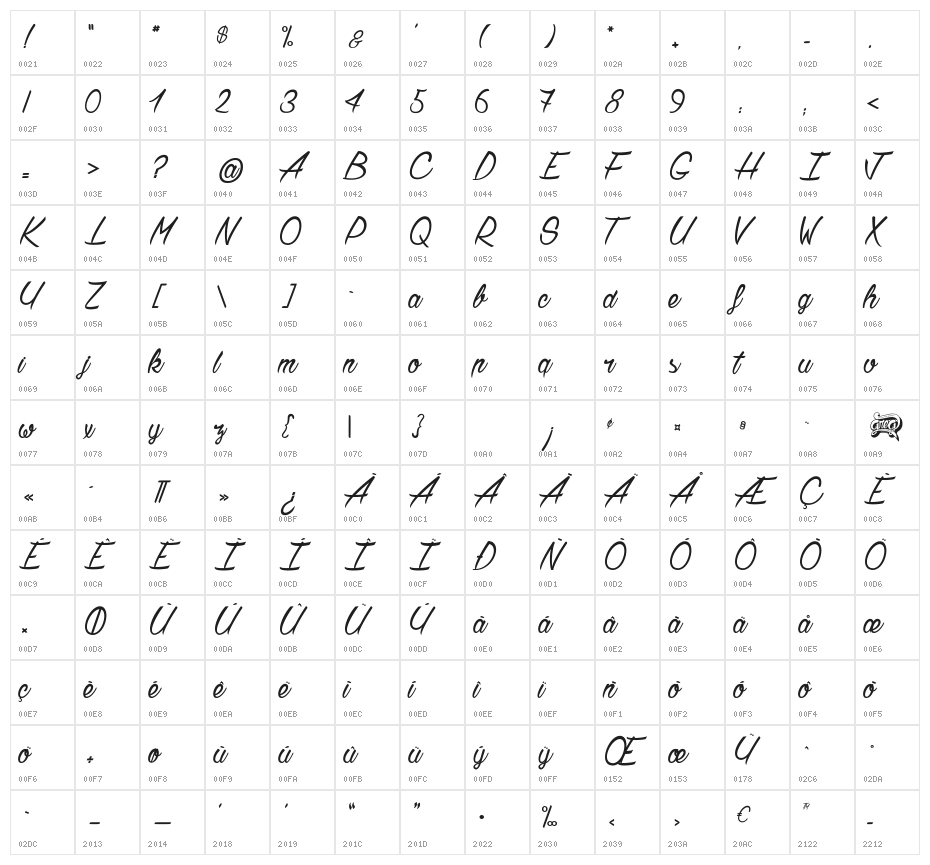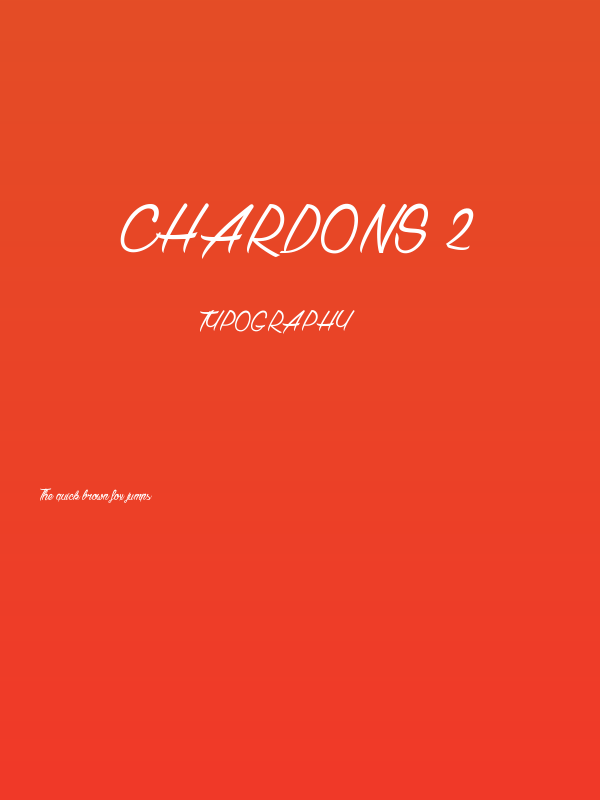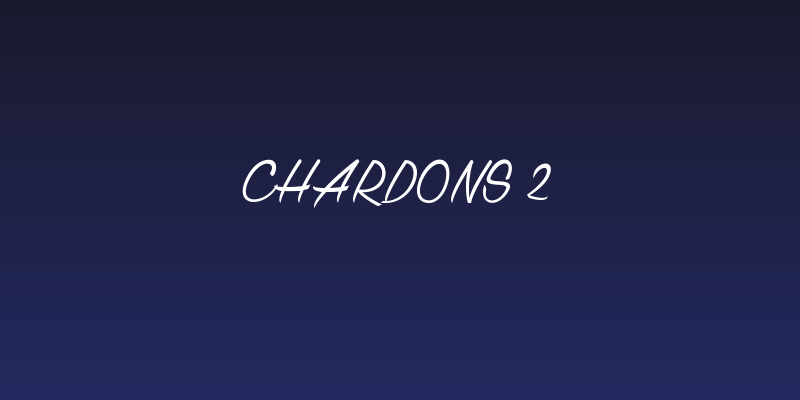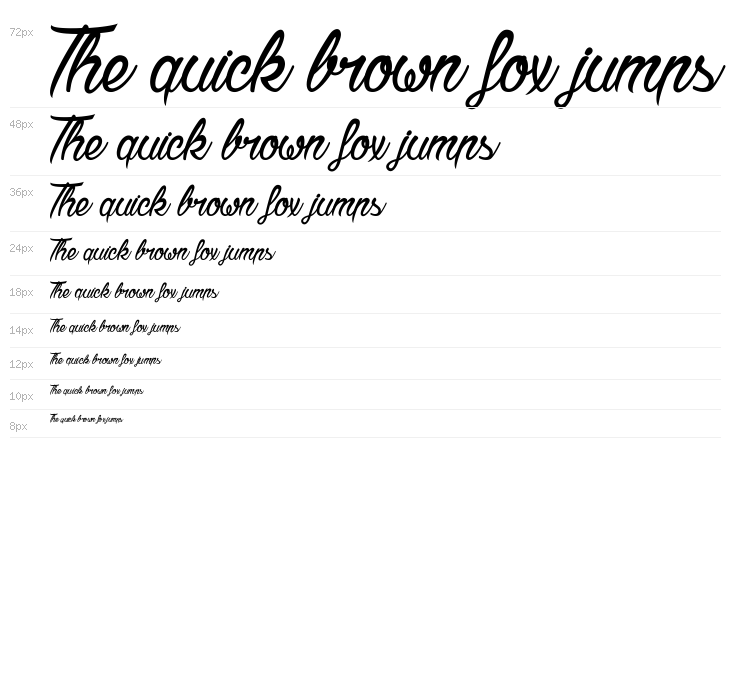
Chardons 2 Font
Chardons 2 Description
This font features an elegant and flowing script style, characterized by its smooth, cursive strokes and slight slant to the right. The uppercase letters are bold and prominent, with a graceful flair that adds a touch of sophistication. The lowercase letters maintain a consistent flow, enhancing readability while retaining a stylish appearance. Numbers are designed with a similar fluidity, ensuring they complement the overall aesthetic. Special characters are seamlessly integrated, maintaining the font's cohesive look. This font exudes a sense of elegance and charm, making it suitable for a variety of creative applications.
| Overall Style | Elegant |
| Use Case | Logos, Invitations, Decorative Text |
| Proposed Projects | Ideal for wedding invitations, elegant branding, greeting cards, and decorative signage. |